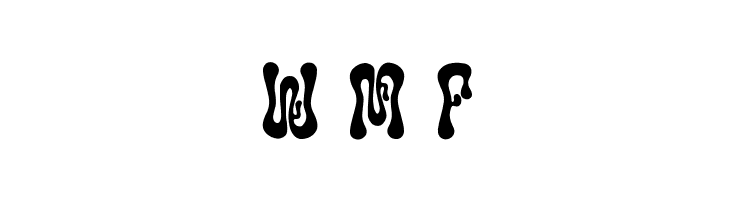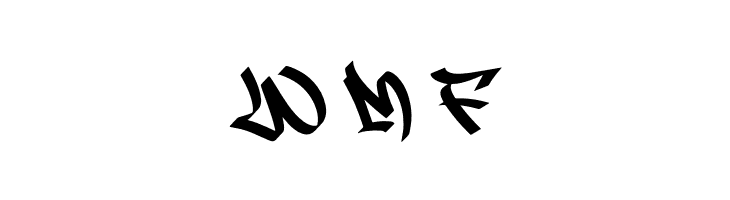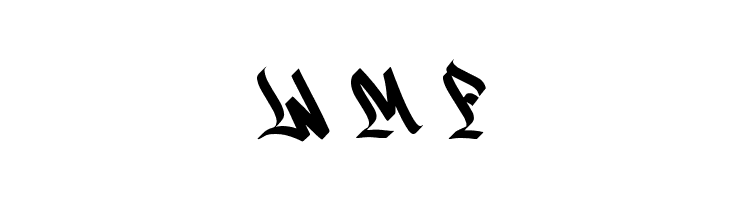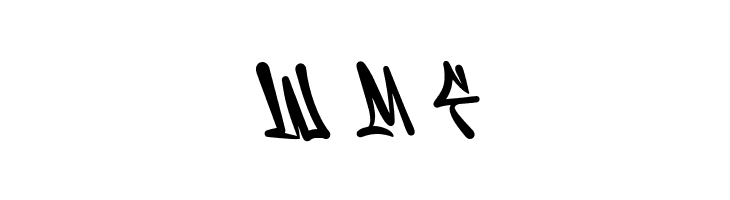
• Squidwod
( Fonts by Ronny Studio )
A bold, fluid, and playful font with wavy, organic lines.
• Deserved-Regular
( Fonts by Ronny Studio )
A bold, decorative font with high contrast and artistic flair.
• Bubble Krabby
( Fonts by Ronny Studio )
A playful, bubbly font with a bold and whimsical design.
• Bobaboy DEMO
( Fonts by Ronny Studio )
A bold, high-contrast serif font with sharp serifs and a commanding presence.
• Devans
( Fonts by Ronny Studio )
A bold, ornate Blackletter font with intricate, angular letterforms.
• Suctenss
( Fonts by Ronny Studio )
A bold, gothic-inspired font with sharp, angular edges and a dramatic blackletter style.
• Overals Demo
( Fonts by Ronny Studio )
A bold, graffiti-inspired font with sharp, angular lines and dynamic styling.
• Wildside Regular
( Fonts by Ronny Studio )
A bold, graffiti-inspired font with sharp, angular lines and dynamic style.
• Hesorder
( Fonts by Ronny Studio )
A bold, graffiti-inspired font with dynamic, hand-drawn letters.
• Bastrad-Regular
( Fonts by Ronny Studio )
A bold, graffiti-inspired font with sharp angles and dynamic shapes.